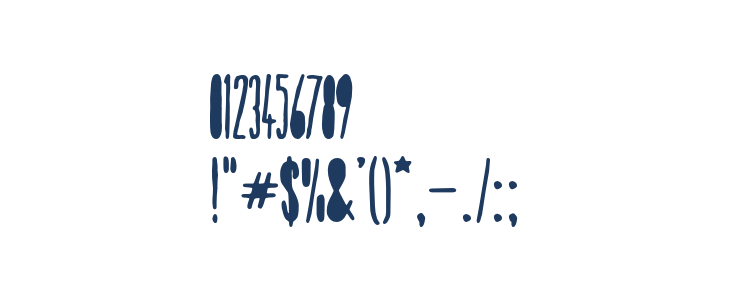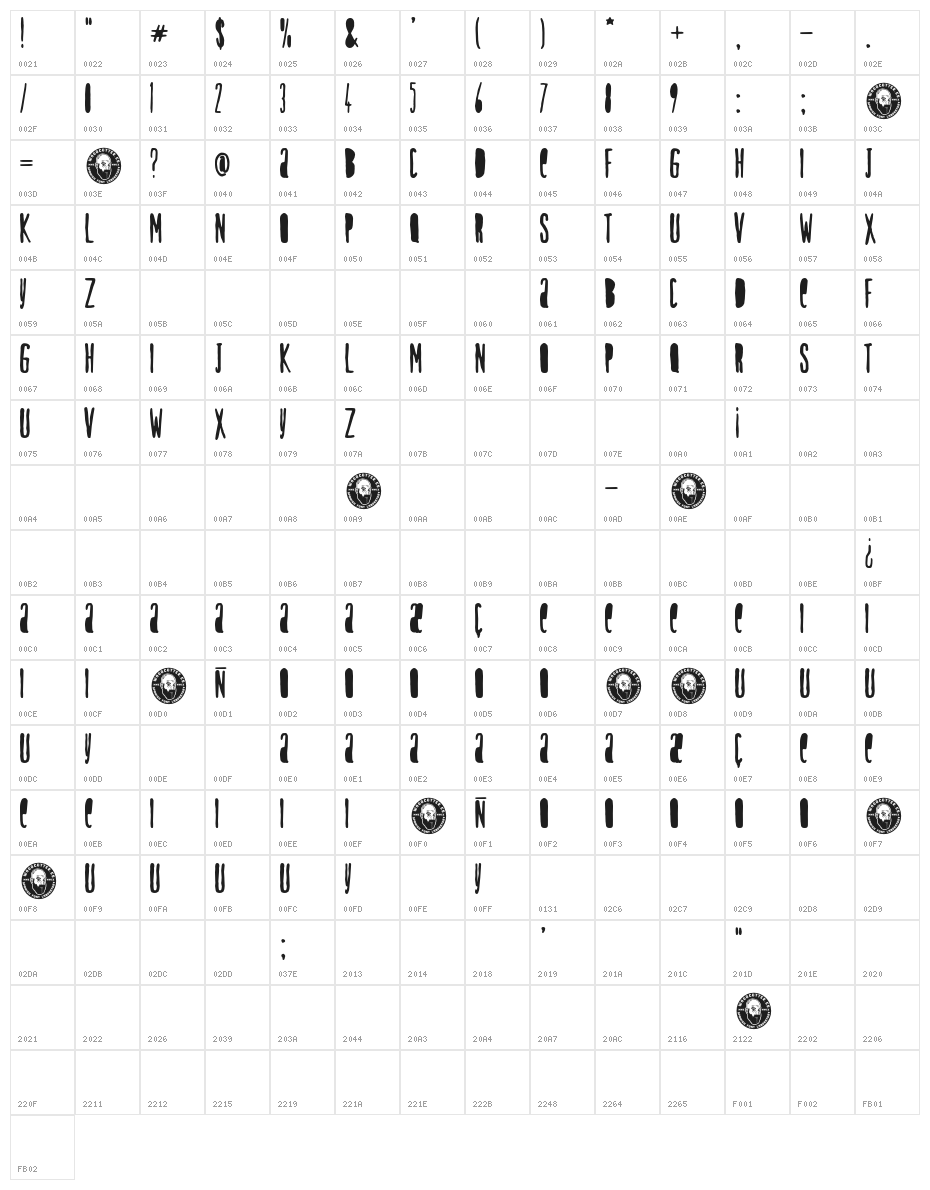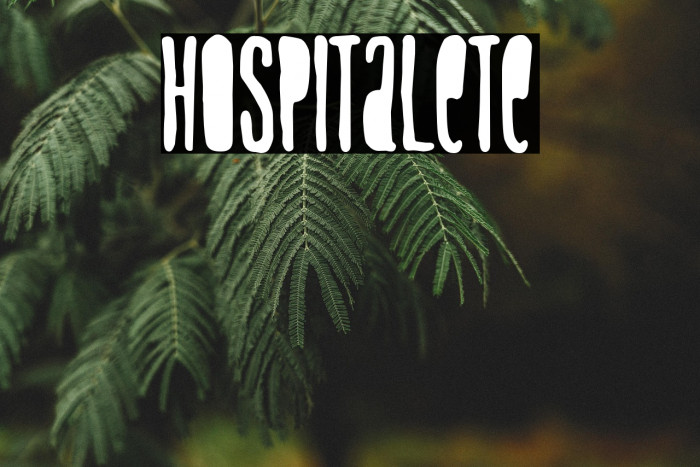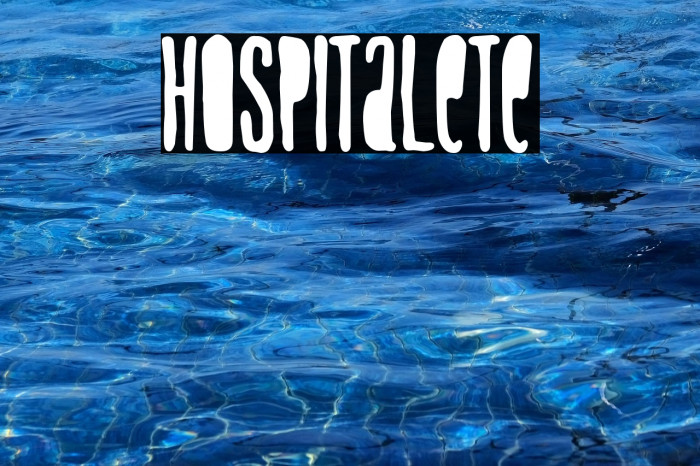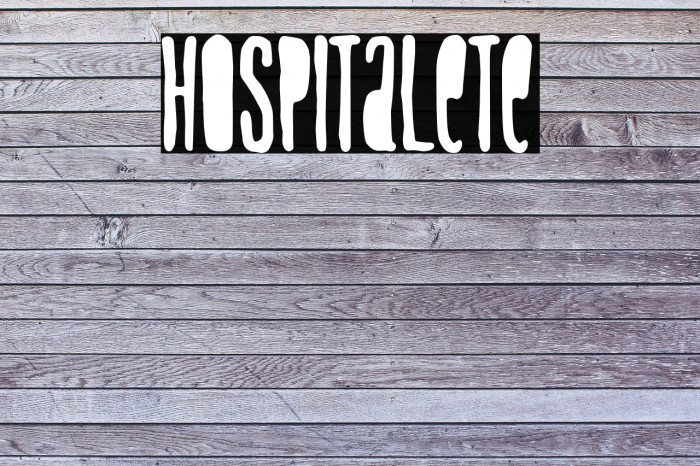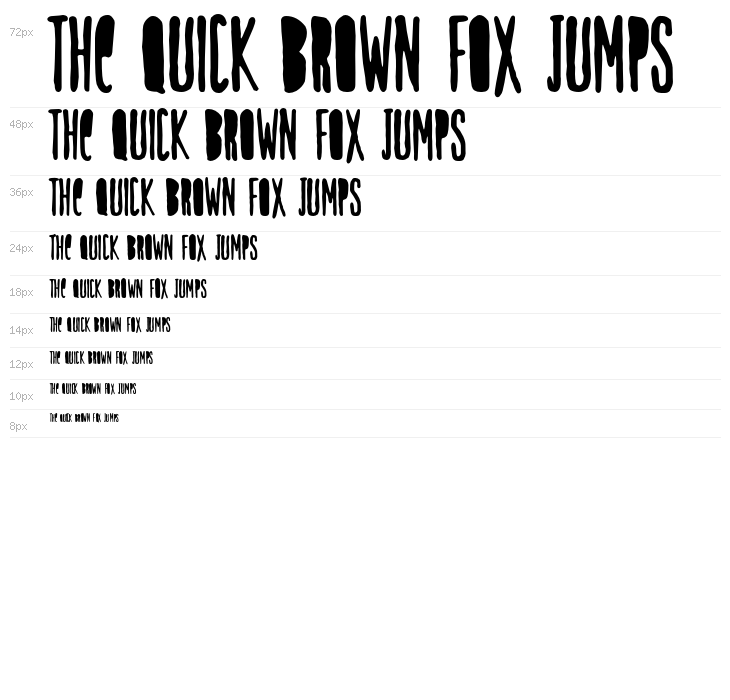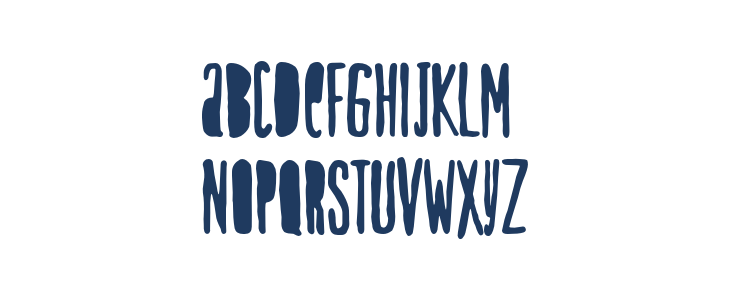
Hospitalete Font
Hospitalete Description
This font features a bold and playful style with a hand-drawn appearance. The characters are tall and narrow, with a slightly irregular shape that adds a whimsical touch. The uppercase and lowercase letters maintain a consistent height, creating a cohesive look. Numbers and special characters follow the same design principles, ensuring uniformity across all glyphs. The strokes are thick and rounded, giving the font a friendly and approachable feel. This font is ideal for projects that require a fun and informal aesthetic.
| Proposed Projects | Ideal for children's books, playful branding, posters, and creative invitations. |